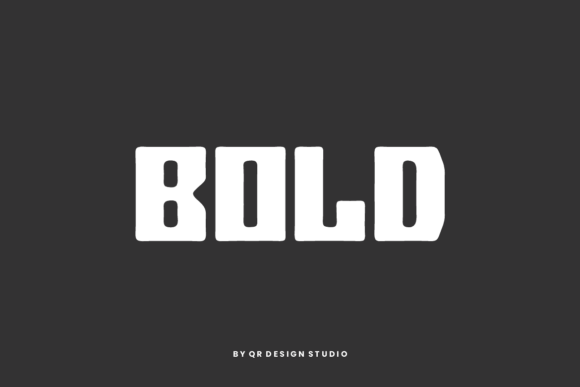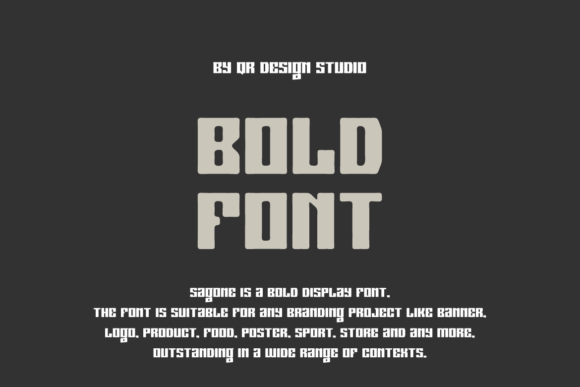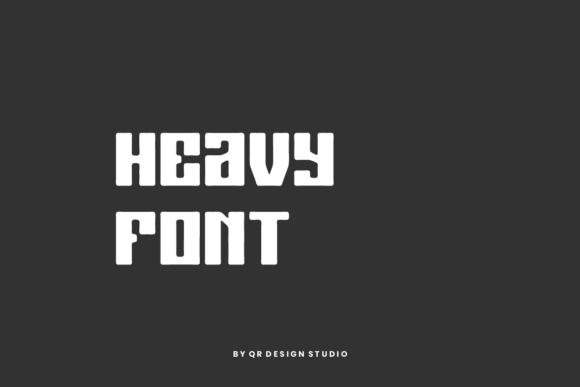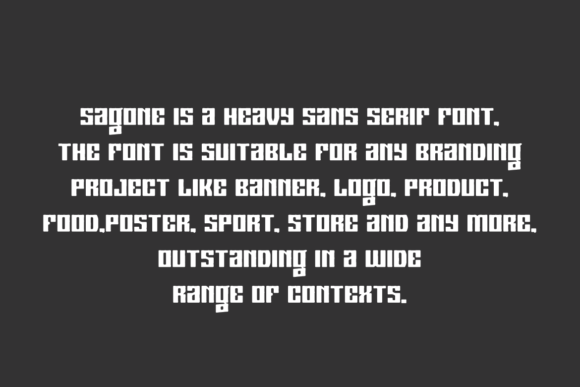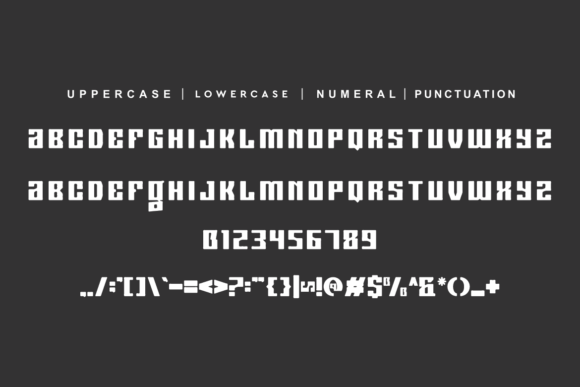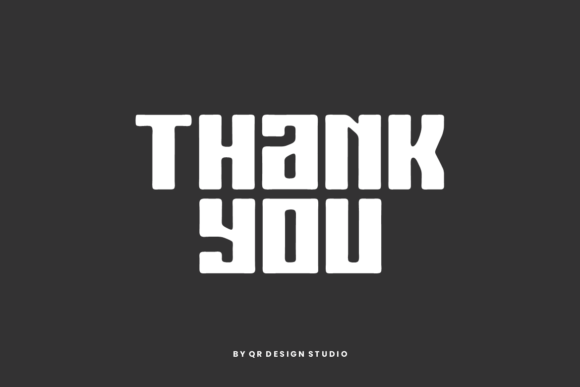
Introduction to Sagone Font
Sagone Font is a bold and authentic display font.
The font is suitable for any branding project like logo, sport, and many more Outstanding in a wide range of contexts.
Key Features of Sagone Font